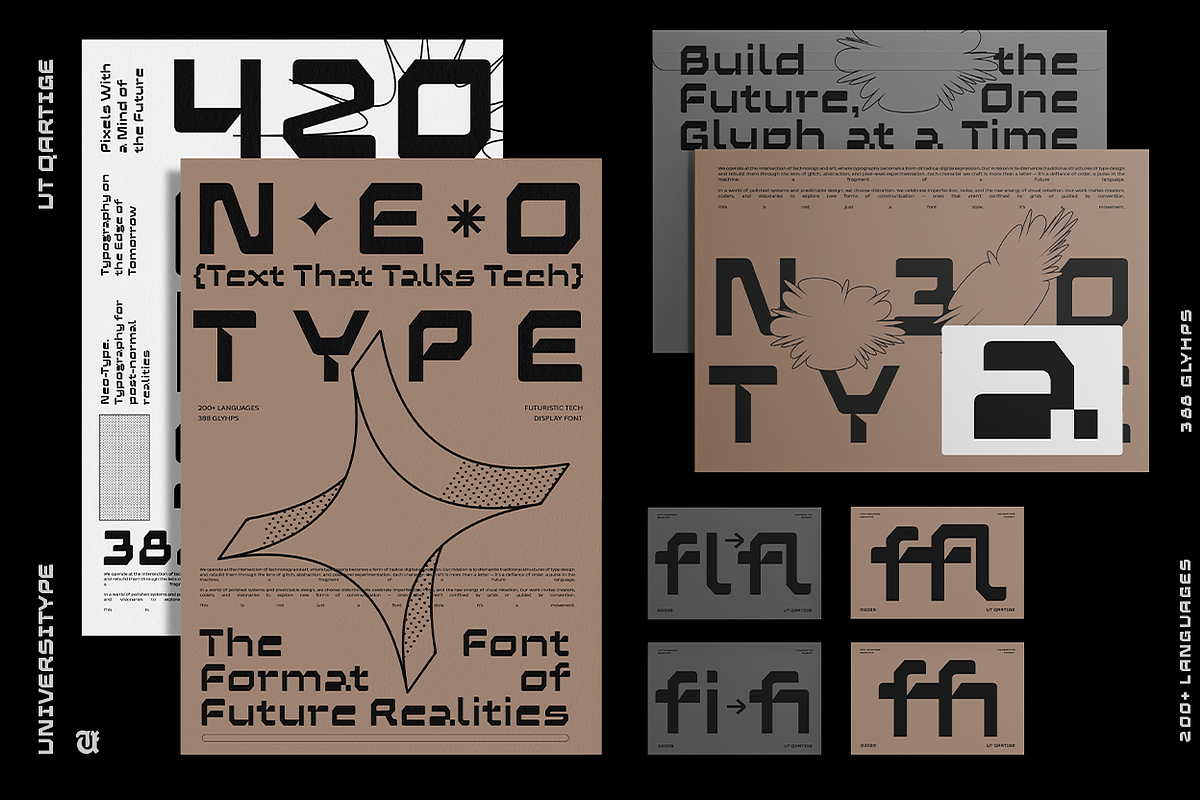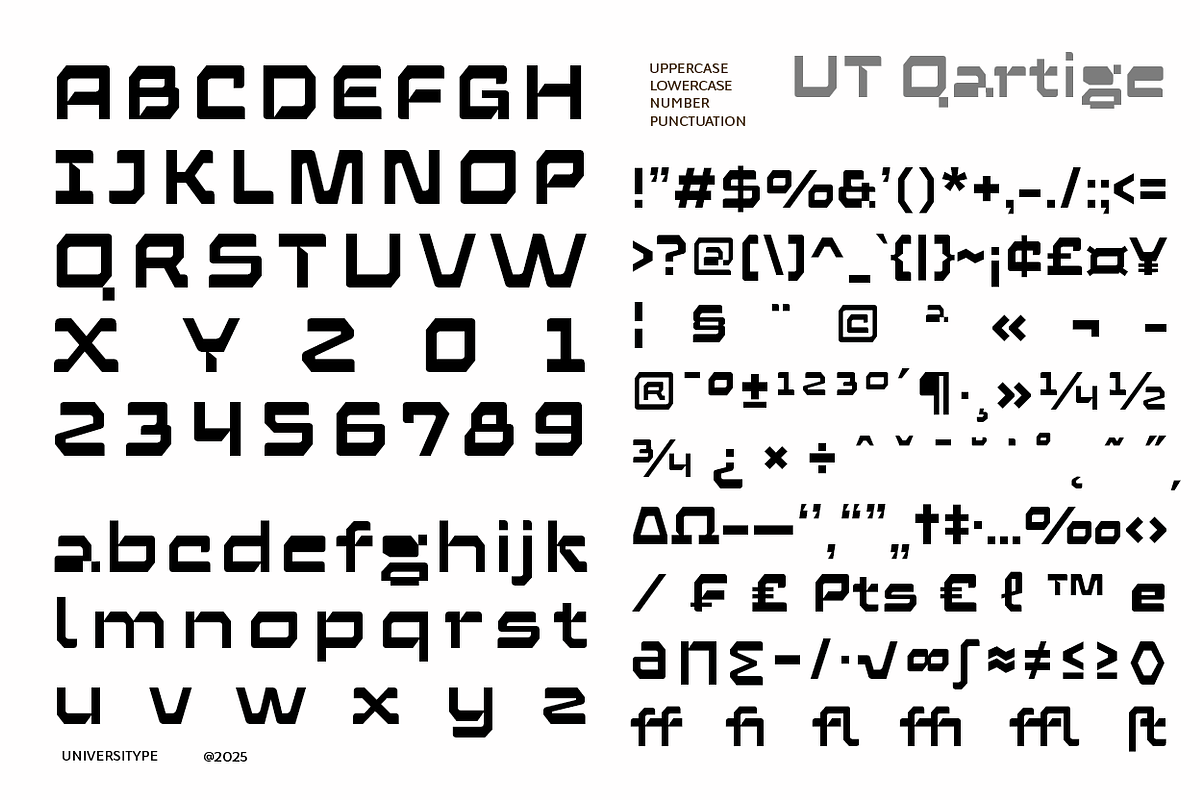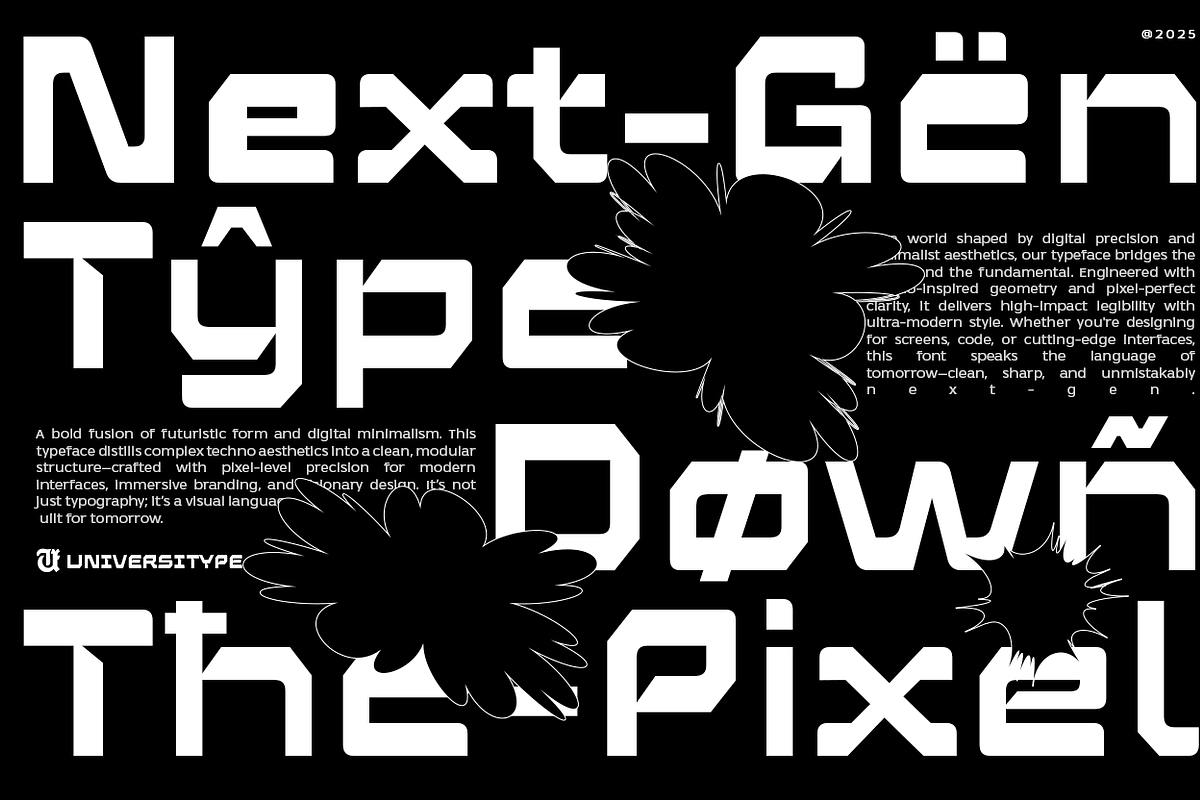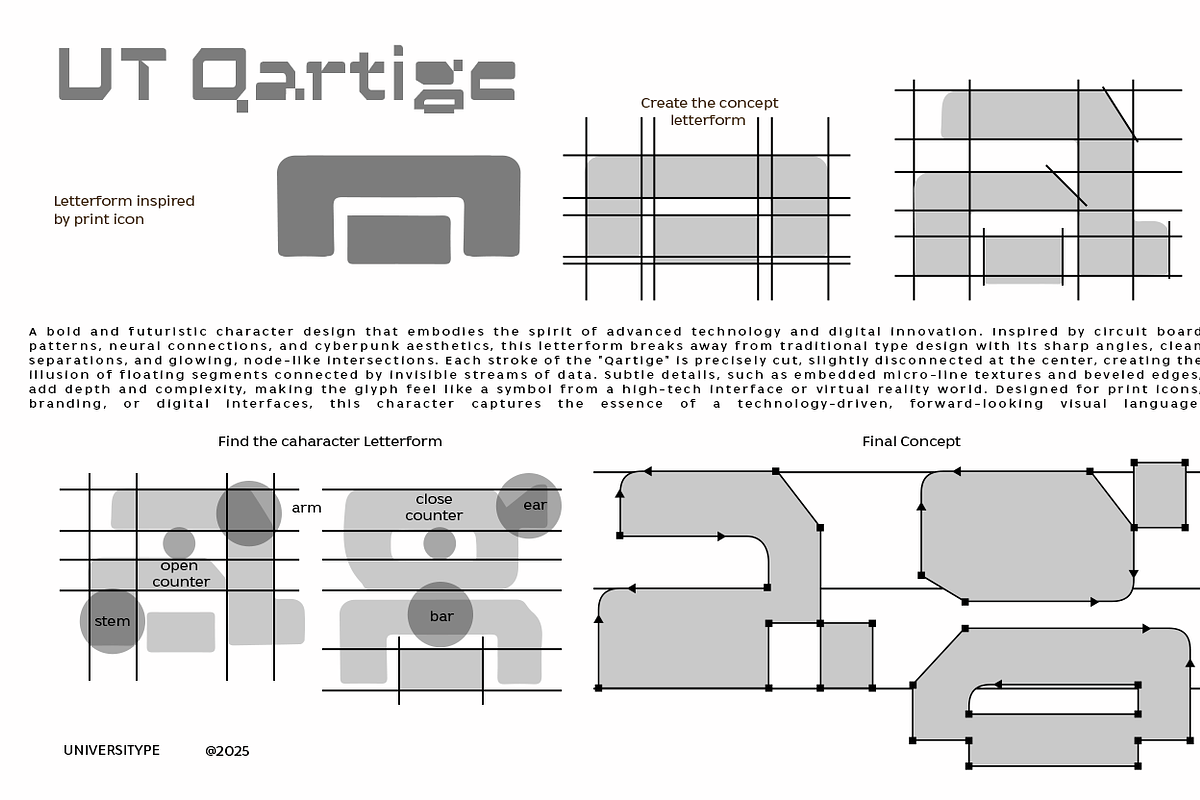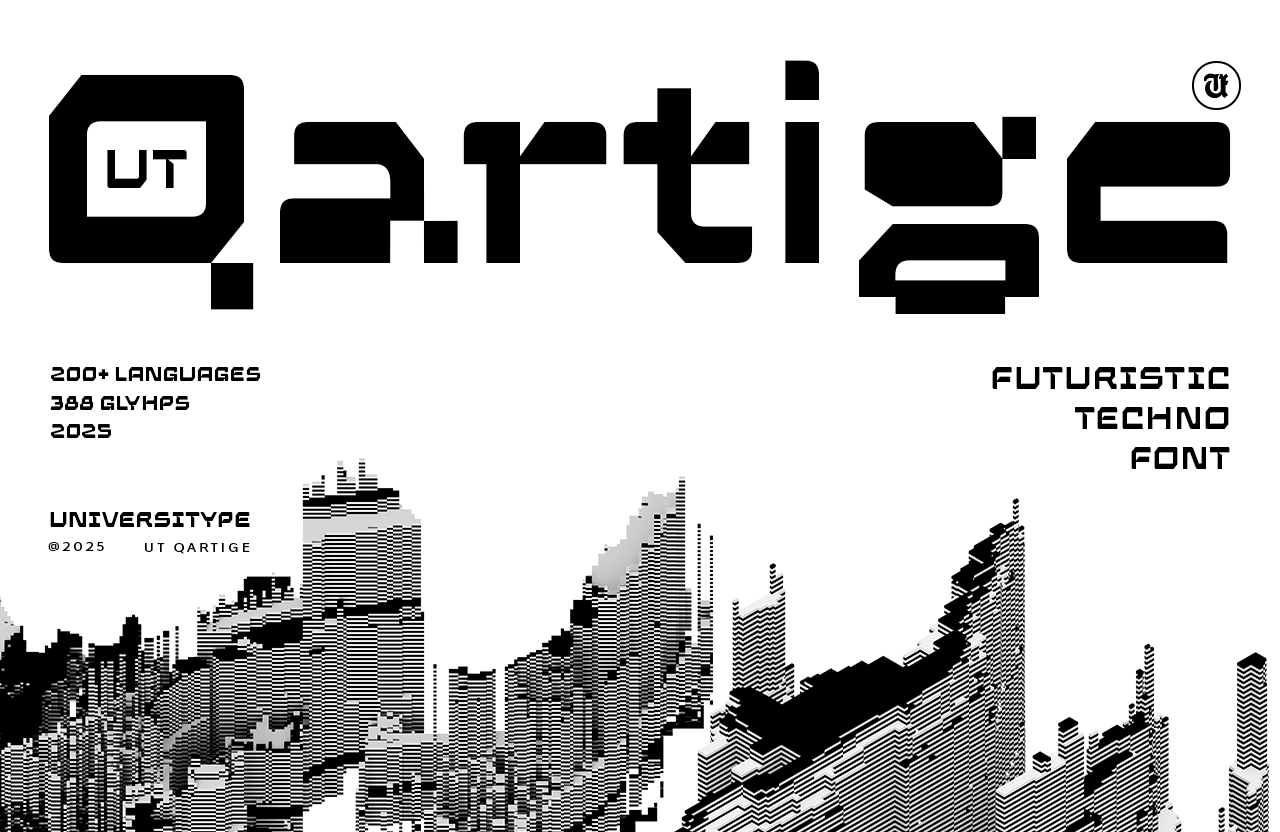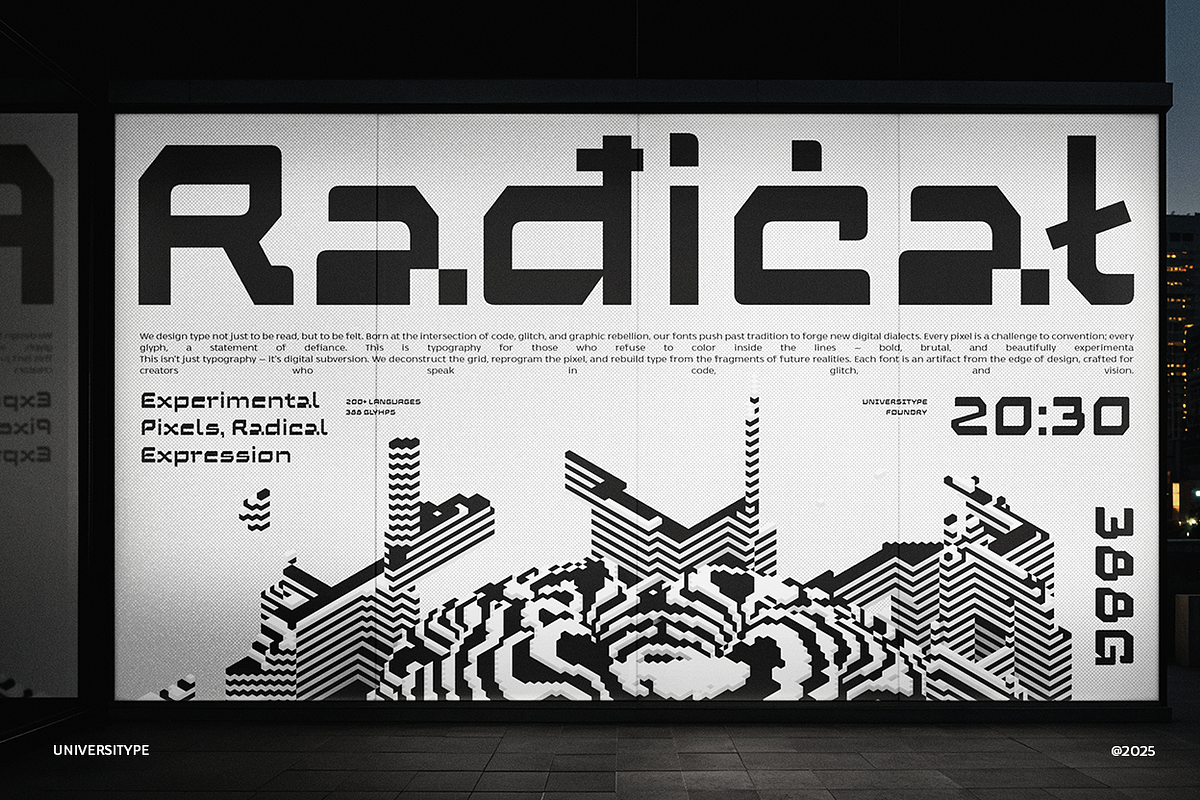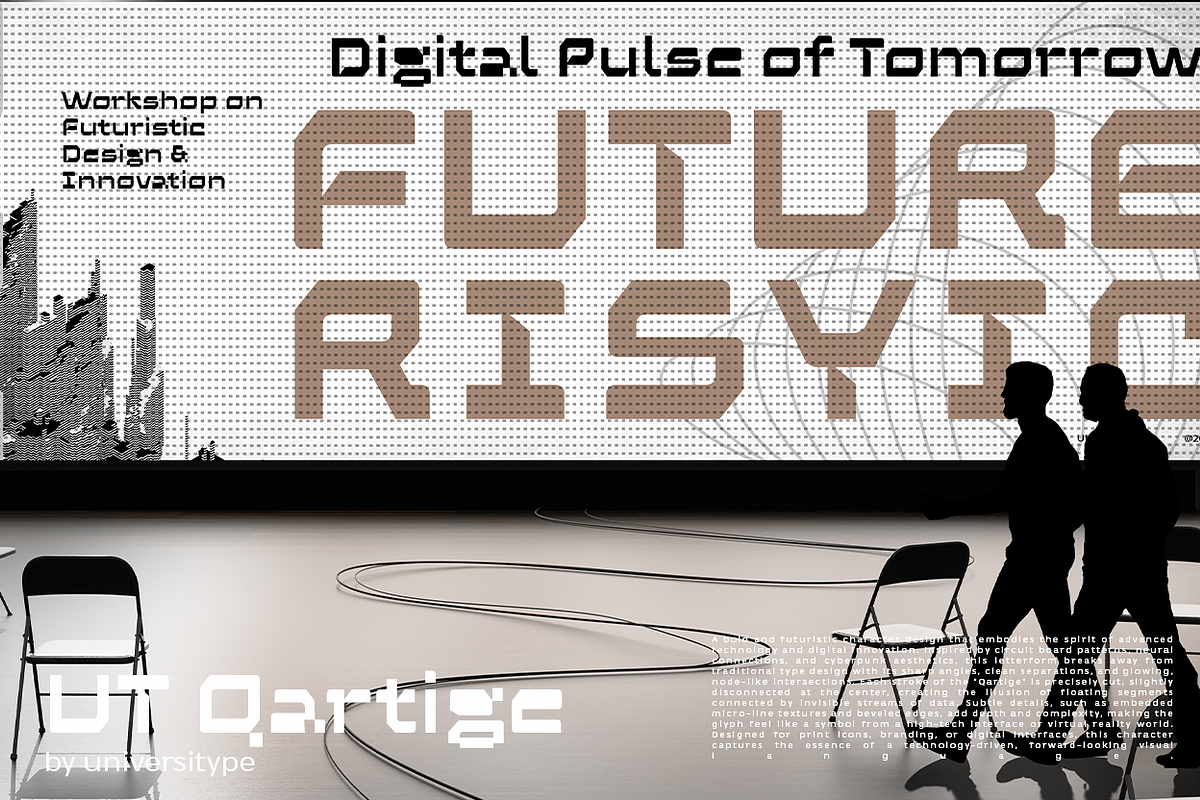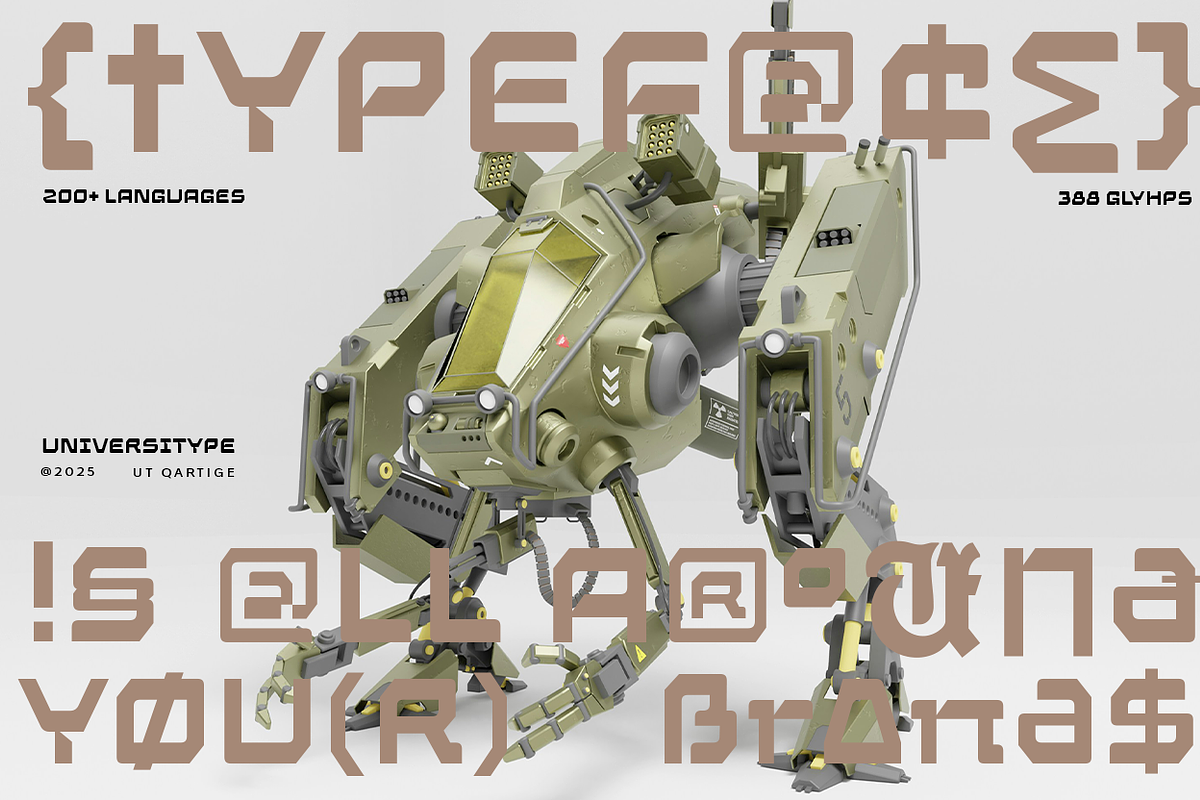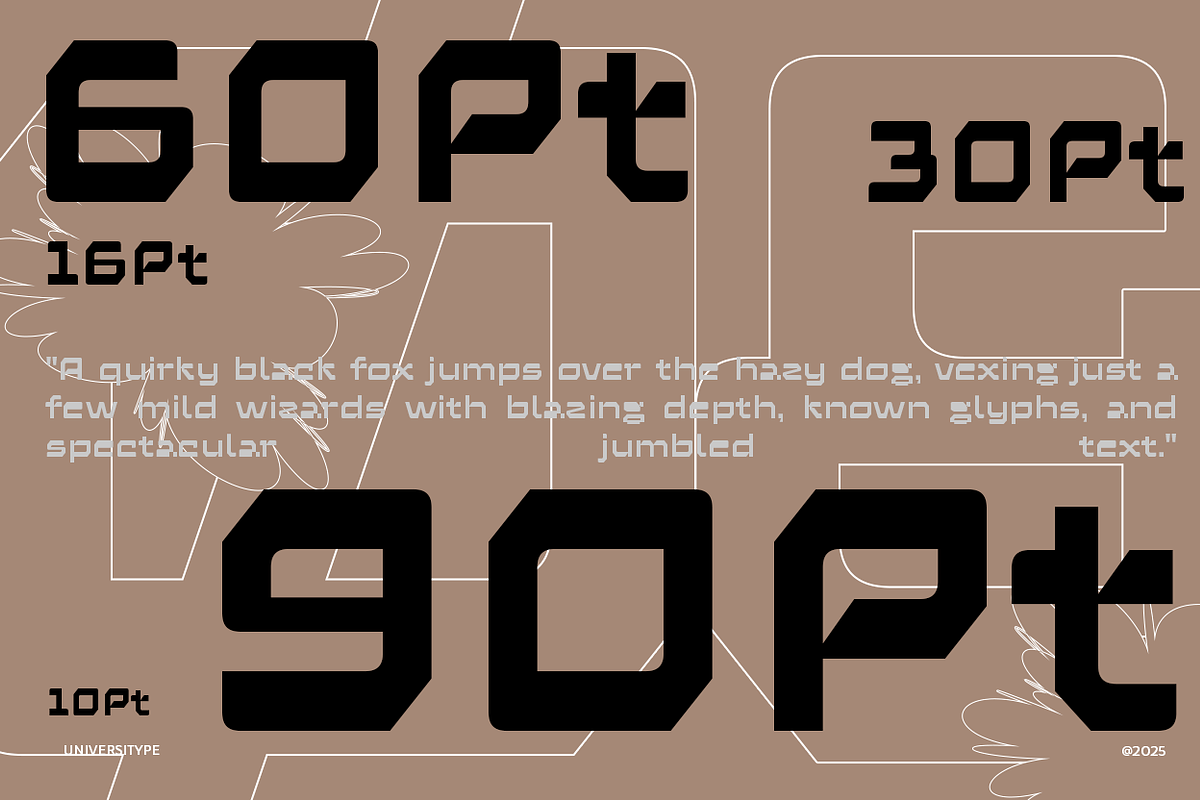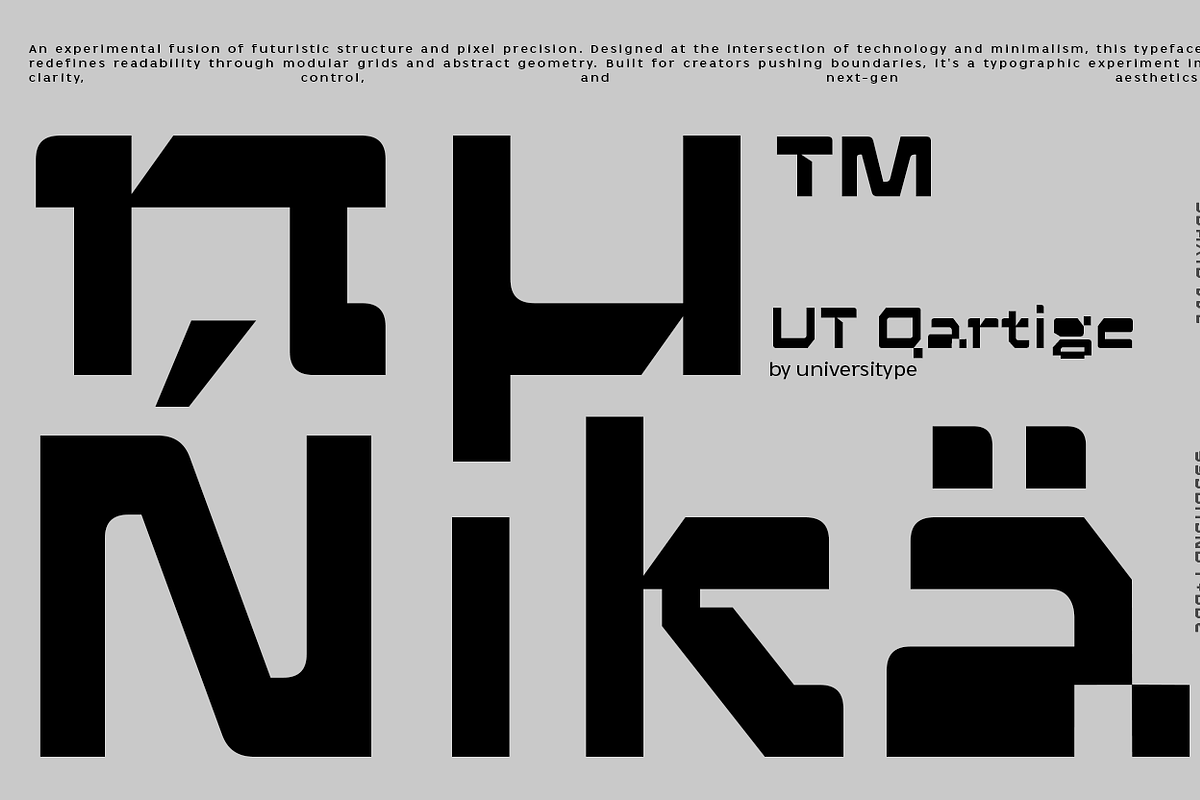
UT Qartige - A Technofuturistic Font
UT Qartige -A Techno-futuristic Typeface
UT Qartige is a techno-futuristic typeface born from the fusion of machine precision and digital rebellion. With its angular cuts, micro-line illusions, and bold, cyberpunk edge, this font feels like it just stepped out of a high-tech lab or a VR command center. Every letterform is designed to look like a data stream in motion—clean, coded, and full of character. It’s unapologetically modern, slightly disjointed for that “floating element” effect, and unmistakably built for a digital-first world.
UT Qartige will suit you if you are : Graphic designers, tech startups, sci-fi lovers, game developers, UX/UI designers, and anyone craving a futuristic font that instantly commands attention without trying too hard.
- Supports 200+ languages
- 388 glyphs including symbols, punctuation, and ligatures
- Unique disjointed-style letterforms that mimic floating segments
- Uppercase, lowercase, numbers, multilingual support
- Sharp geometric builds with soft curves at key terminals
- Designed with branding, interfaces, and futuristic displays in mind
Inspiration Behind the UT Qartige Design The idea sparked from the humble “print” icon—reimagined as a core glyph. From there, UT Qartige grew into a visual tribute to circuit board patterns, neural maps, and the glitchy aesthetics of dystopian cities. Think cyberpunk grids, digital blueprints, and invisible data pulses. Every glyph tells a story of tech evolution, from analog roots to pixel-dense futures.
Usage Suggestions UT Qartige perfect for:
- Tech logos & branding
- UI headers and interface labels
- Music covers, posters, and digital zines
- Sci-fi and gaming titles
- Virtual product packaging
- Futuristic web and mobile design
- Basically, if your project looks like it belongs in 2049, UT Qartige fits right in.
- Standard & discretionary ligatures
- Extended Latin support
- Punctuation and symbols
- Currency, math symbols, and technical marks
- Fraction and numeral support